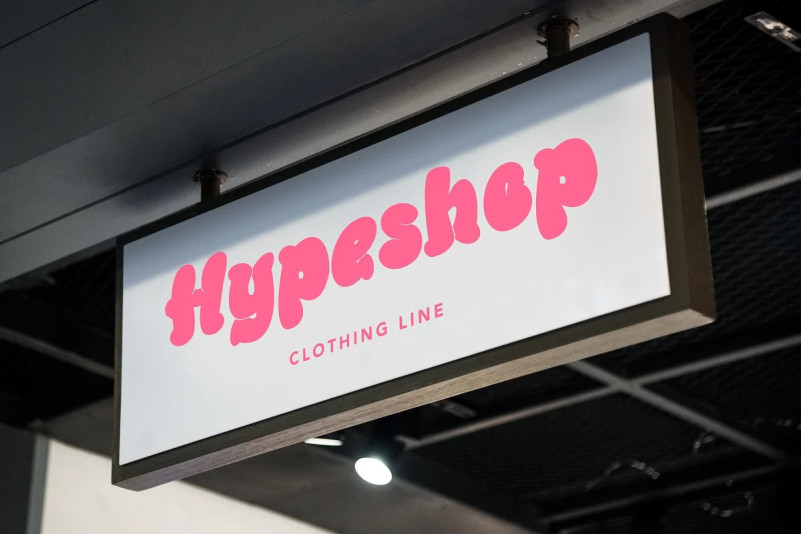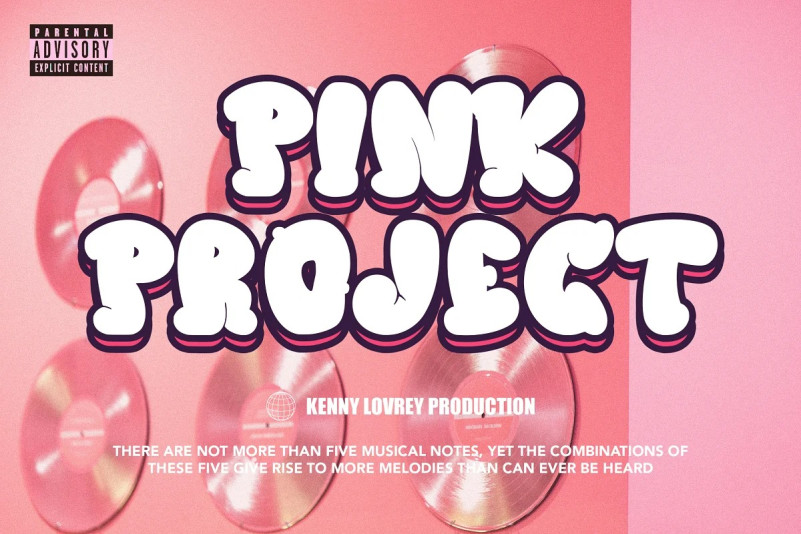
Bubble Dope Font
Bubble Dope – Groovy Display Font is a font with distinctive handwritten characters perfect for branding projects, logos, wedding designs, media posts, advertisements, product packaging, product designs, labels, photography, watermarks, invitations, stationery, and any project who need handwritten dishes.